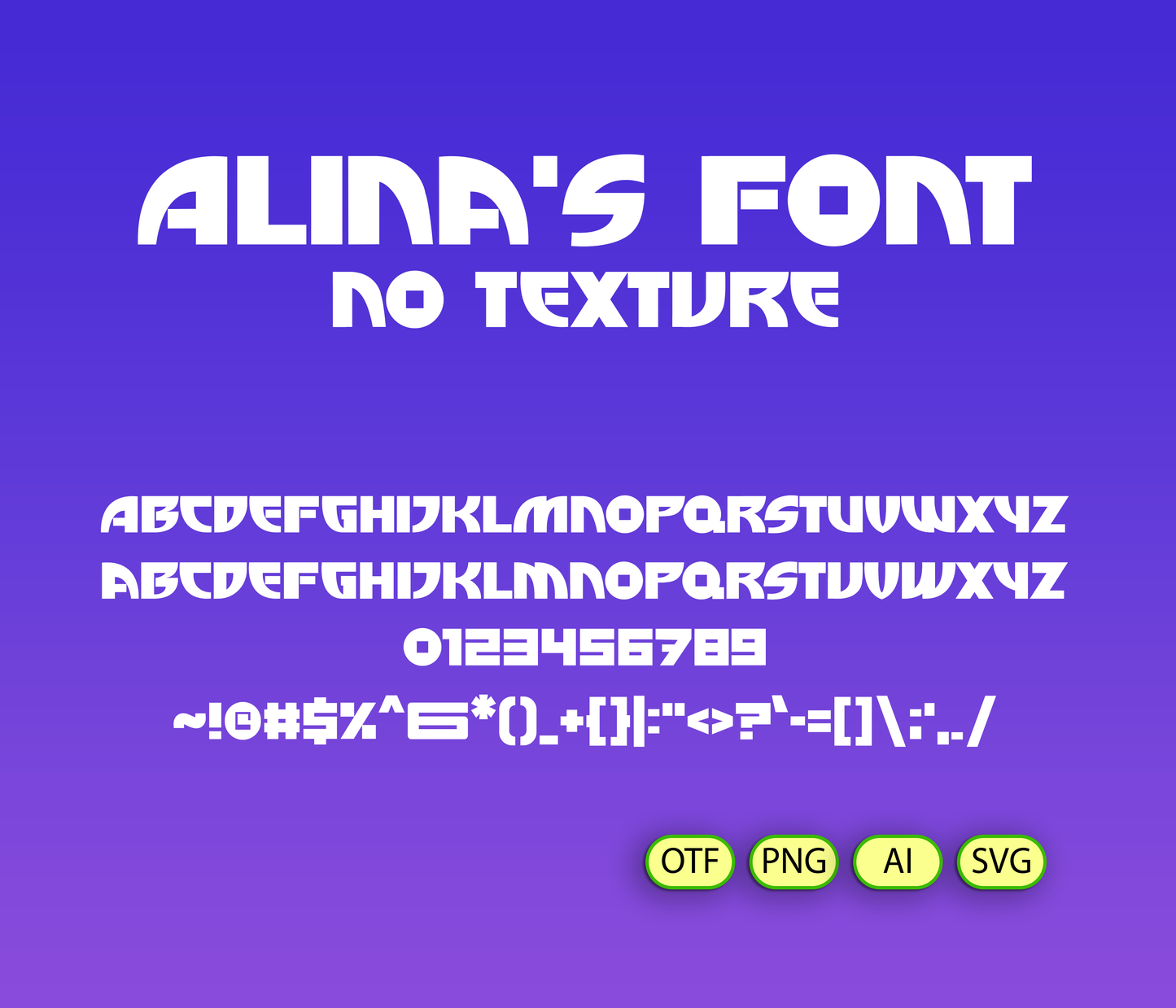
Tech Hero Font
Ignite Innovation with the Tech Hero Font
Dive into the high-tech world of adventure with our specially designed Tech Hero font, inspired by the adventurous spirit and futuristic flair of the beloved animated film. Perfect for fans, event planners, and designers seeking to infuse their projects with a sense of innovation and excitement, this font captures the energetic and cutting-edge essence of the movie. Whether you're creating event invitations, designing themed merchandise, or crafting digital content, our Tech Hero font ensures your projects resonate with technological brilliance and dynamic action.
Our Tech Hero-inspired font features sleek, modern lines and bold, geometric shapes that reflect the high-tech and adventurous themes of the film. This versatile font is ideal for a variety of applications:
Our Tech Hero font not only pays homage to the innovative spirit of the film but also empowers you to infuse your designs with its dynamic and futuristic essence. Whether youโre crafting promotional materials, designing unique merchandise, or adding a touch of technological brilliance to personal projects, this font allows you to communicate with the energy and excitement that define the Tech Hero universe. Ready to bring a high-tech flair to your creative endeavors? This font is your gateway to a world of imaginative and impactful design.